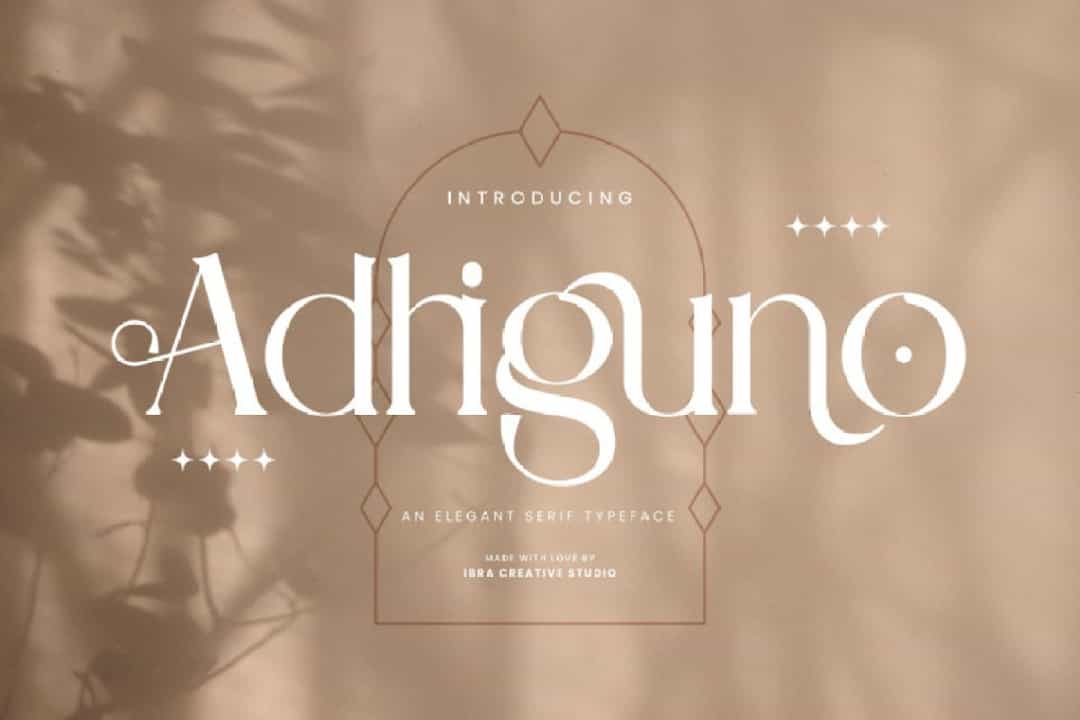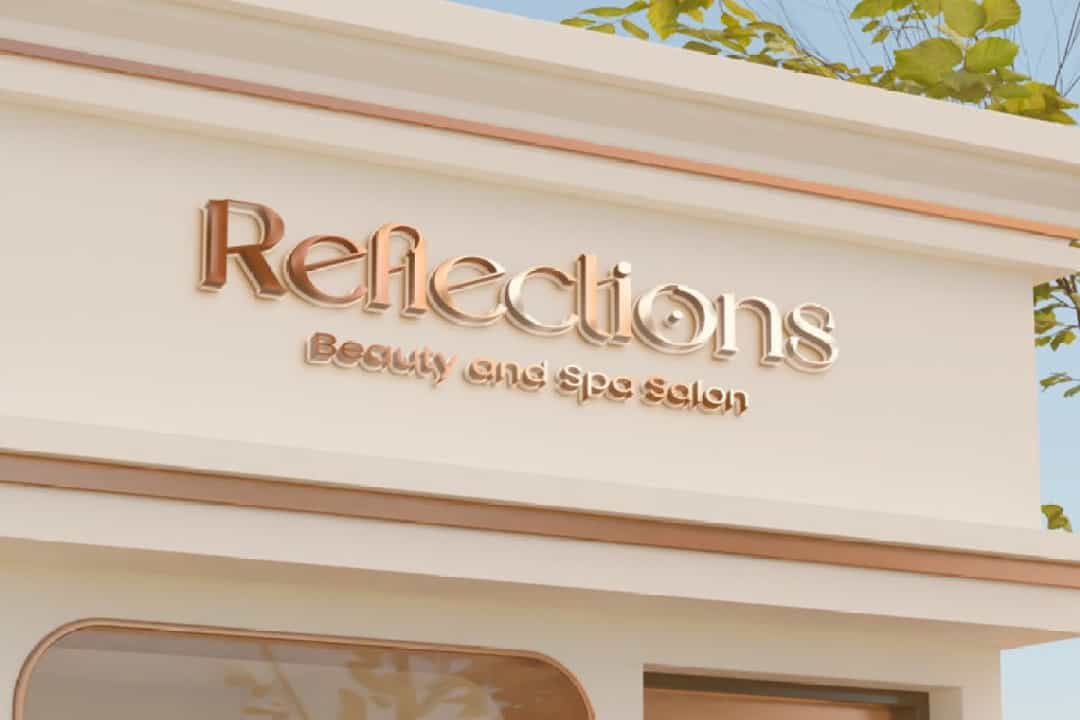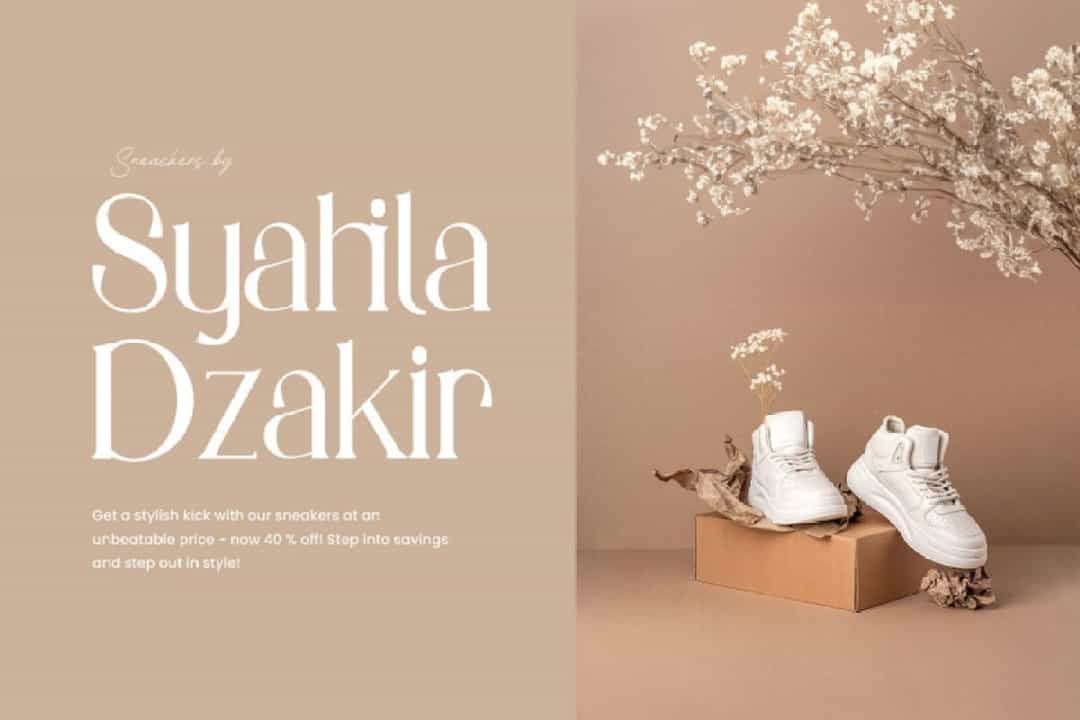
Adhiguno is a sophisticated serif typeface with timeless appeal, carefully designed by its meticulous creators to add a sophisticated and luxurious feel. Graceful serifs are carefully placed, creating harmony between classic and contemporary styles. Letterforms exude refined elegance while well-balanced strokes and subtle details enhance readability and increase overall visual appeal.